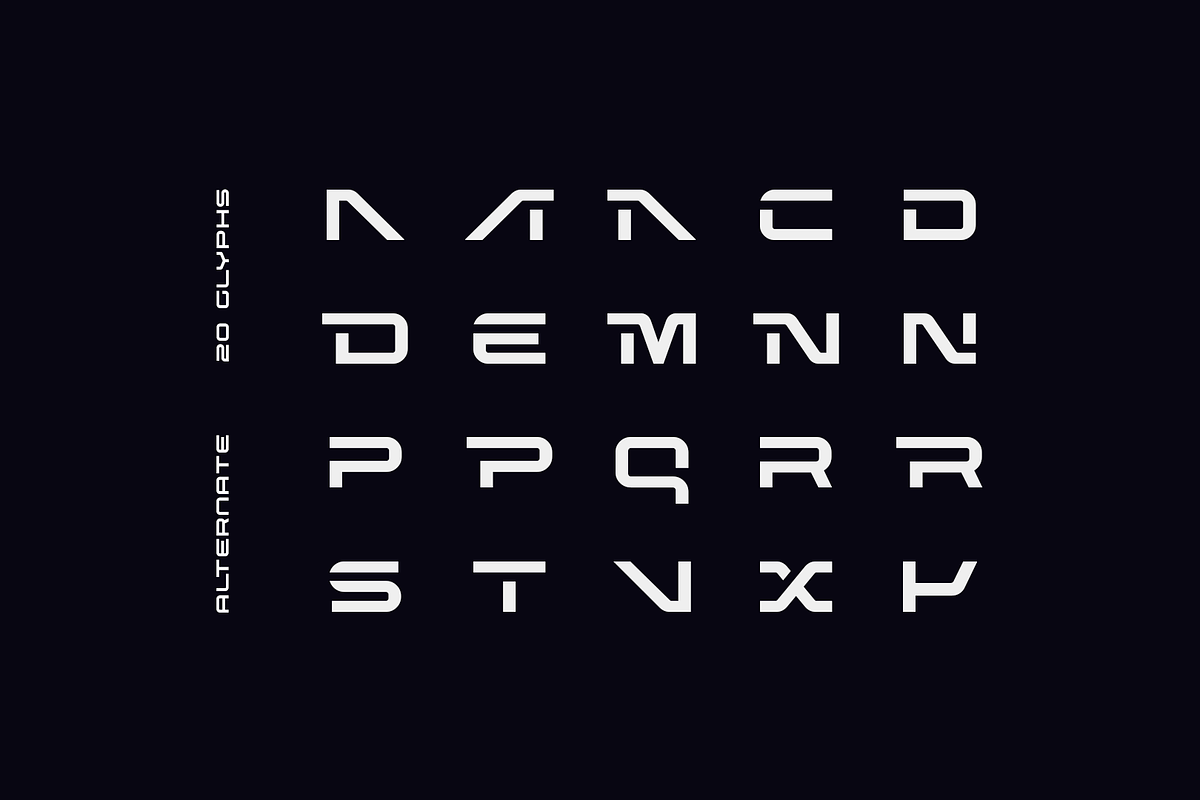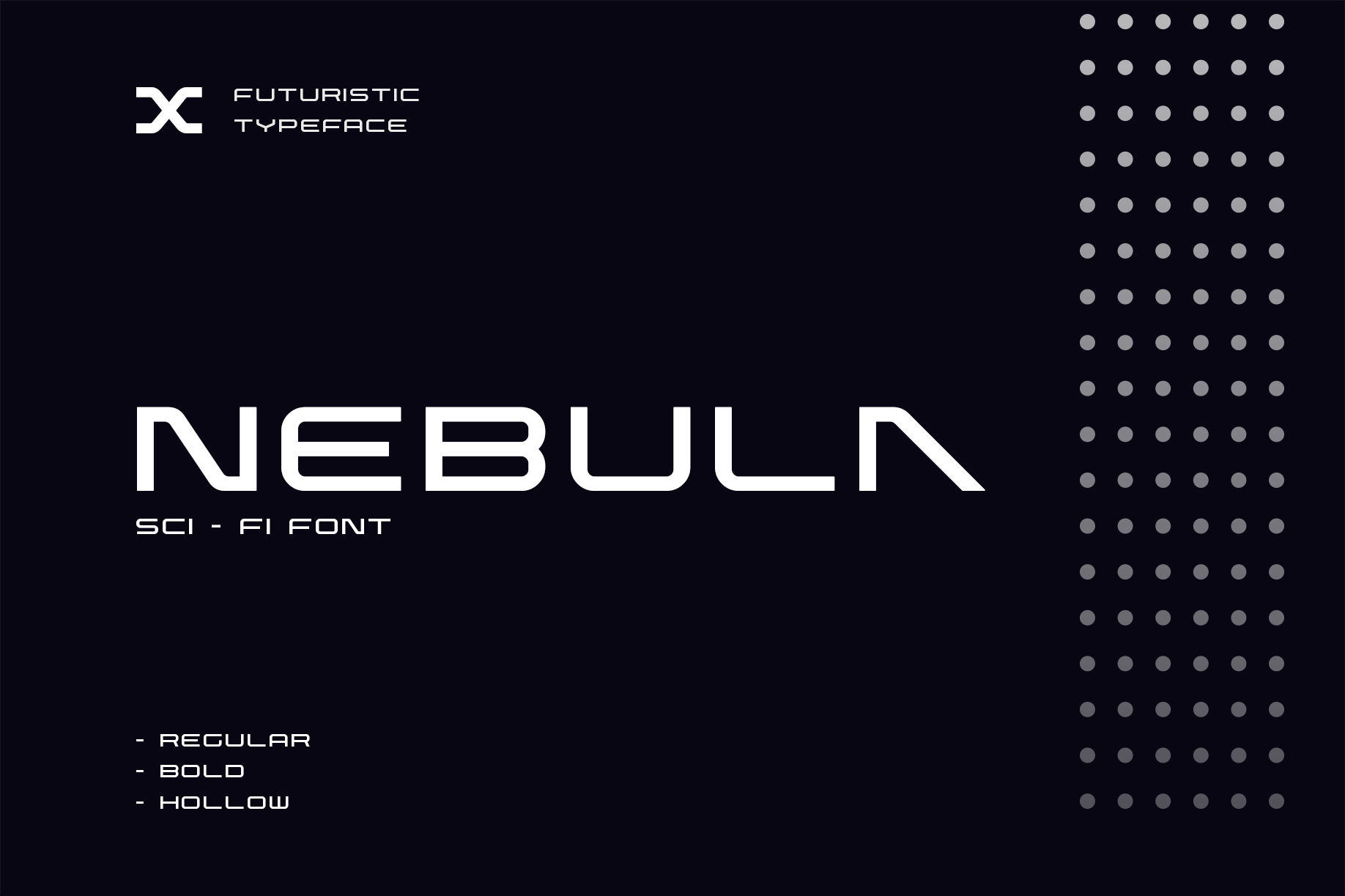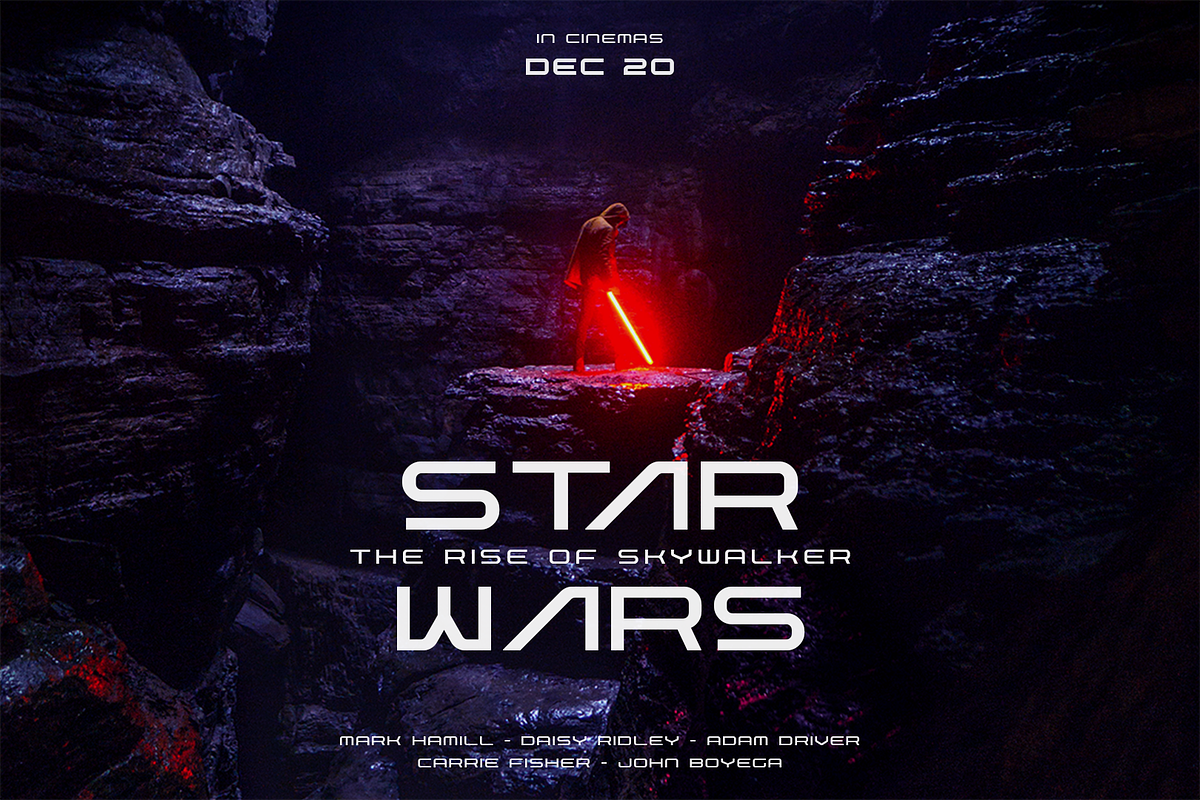
Nebula Font
Introduce my new font called Nebula. Nebula is a futuristic font inspired by science fiction movies and books. Minimalistic is the main style for this typeface also outline style give more modern and elegant look. This font is suitable for various purpose such as movies, posters, logos, labels, webfont and any modern purposes. Many alternate character include for this font, check out the note file for guide how to use it.
Font Styles :
- Nebula Regular
- Nebula Bold
- Nebula Outline